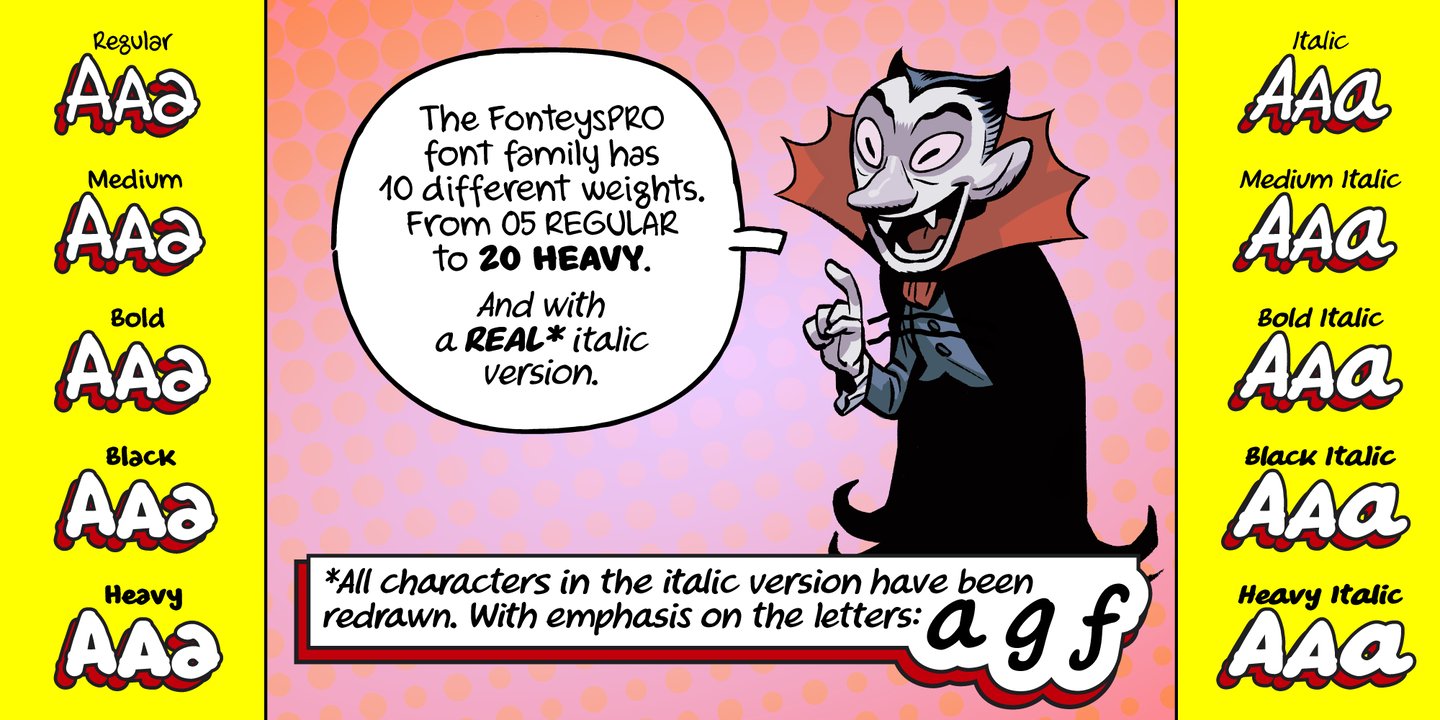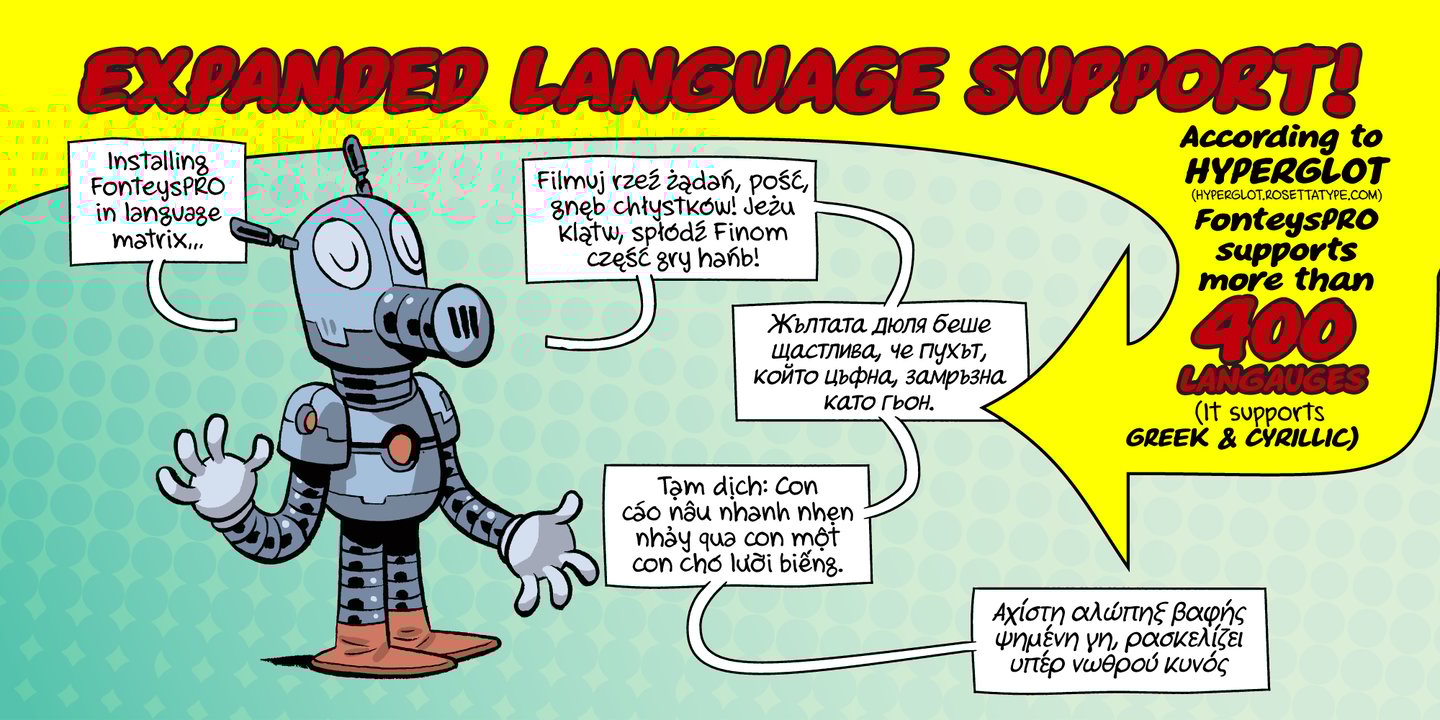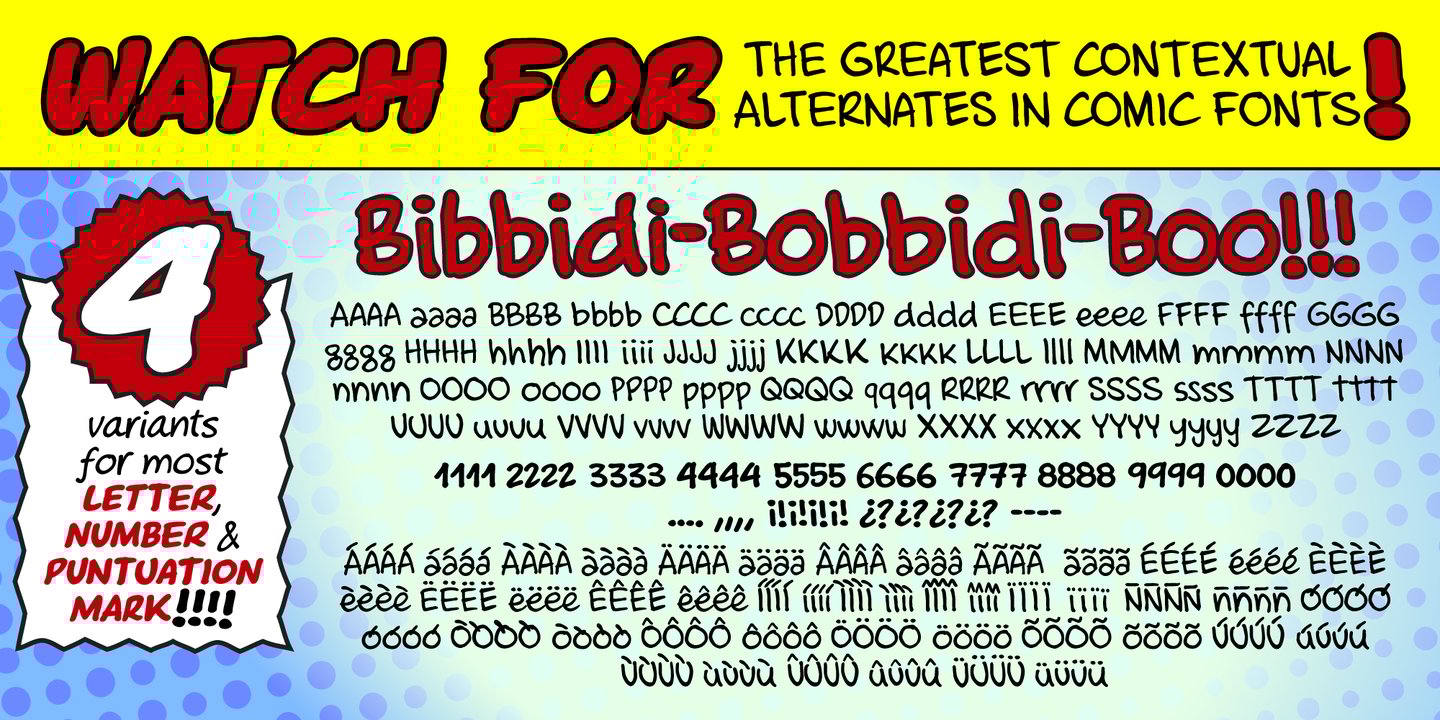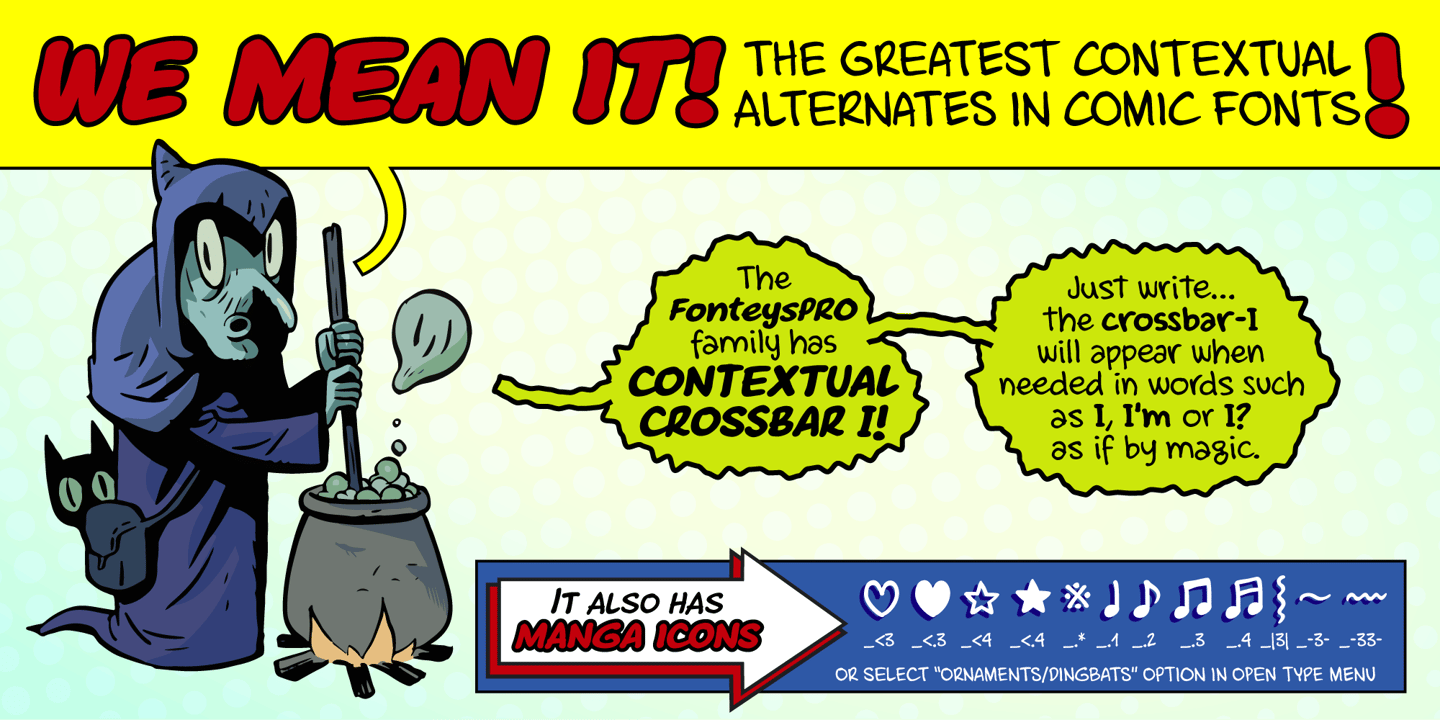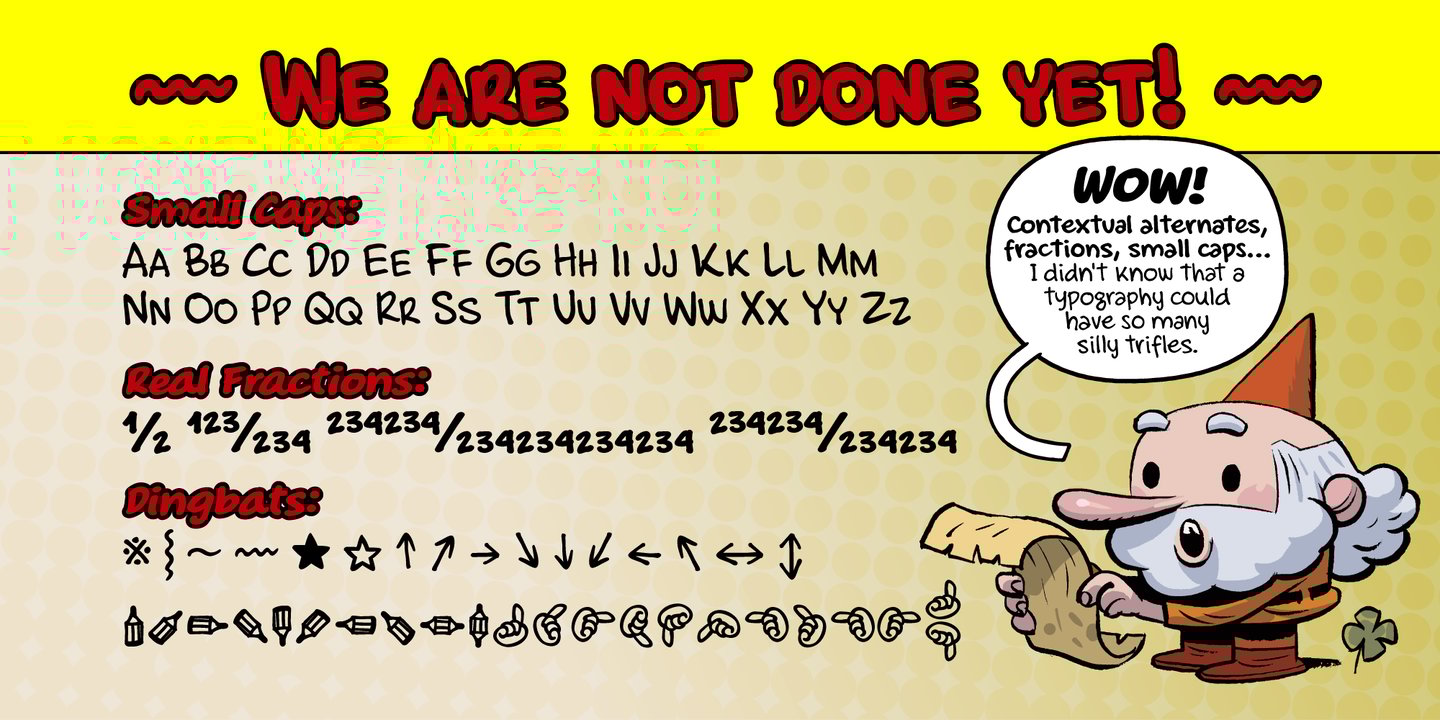
FonteysPRO is the new and improve version of the Fonteys font family by Fernando Fuentes and the Eysner award nominated Albert Monteys.
It is an informal font family designed to letter comics. With a unique handwritting style is also perfect when you need an informal typography.
FonteysPRO has a lot of variants for each letter to enhance the handwriting feeling. It’s feels like actual hand lettering. And, if were not enough, the Fonteys supports almost all latin languages, cylliric, greek, and even vietnamese.
Its early version Fonteys, available at "pay what you want" in the designer webpage, has became in a success in the Indie Comic scene from Spain. Now with the PRO version FonteysPRO will surely become in one of the most used comic books typographies in the world. (In our modest opinion, of course)